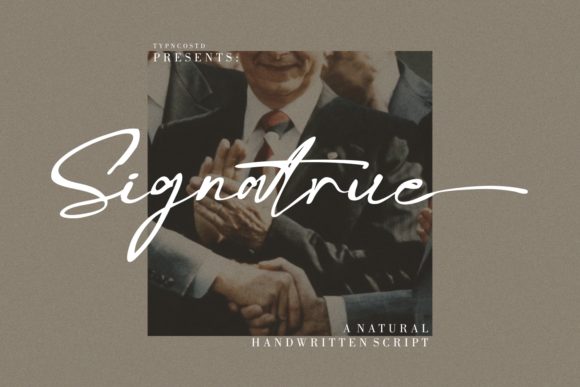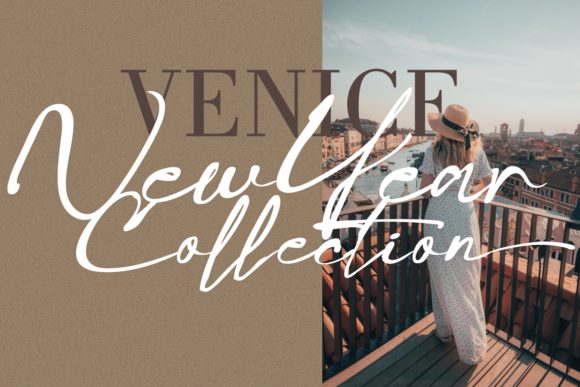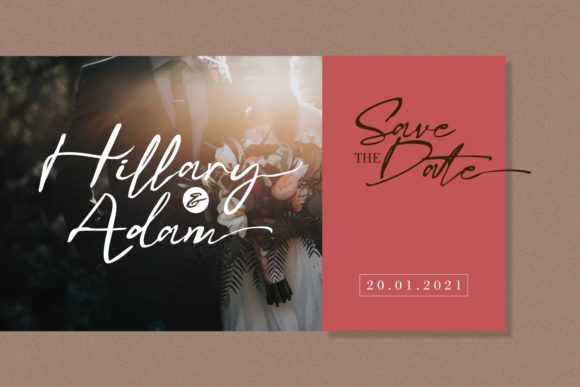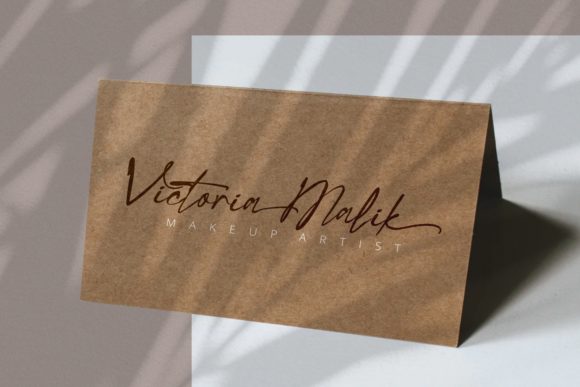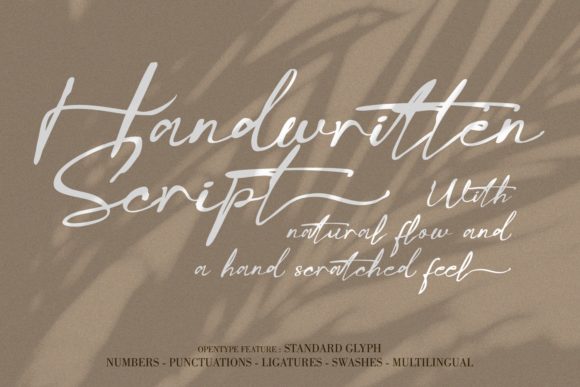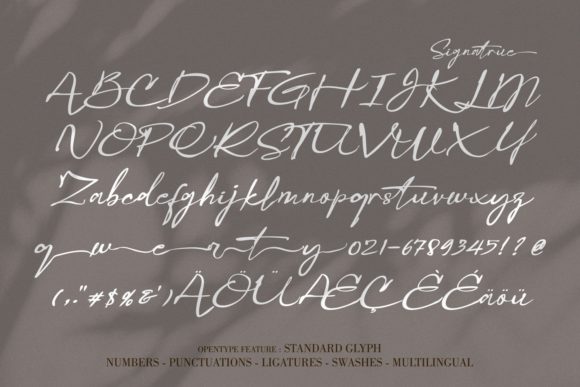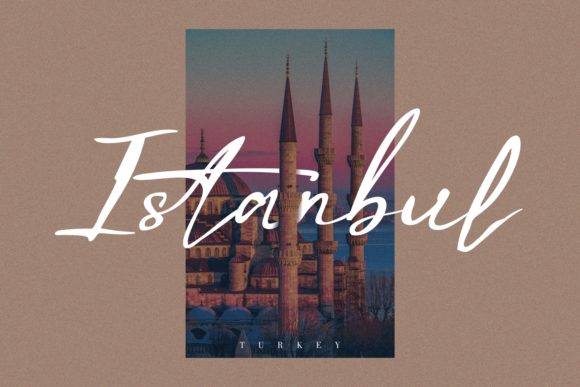
Signatrue Font
About Signatrue Font
Signatrue is an outstanding and incredibly stylish handwritten font.
It looks beautiful on a variety of designs requiring a personalized style, such as wedding invitations, thank you cards, weddings, greeting cards, logos and so on.